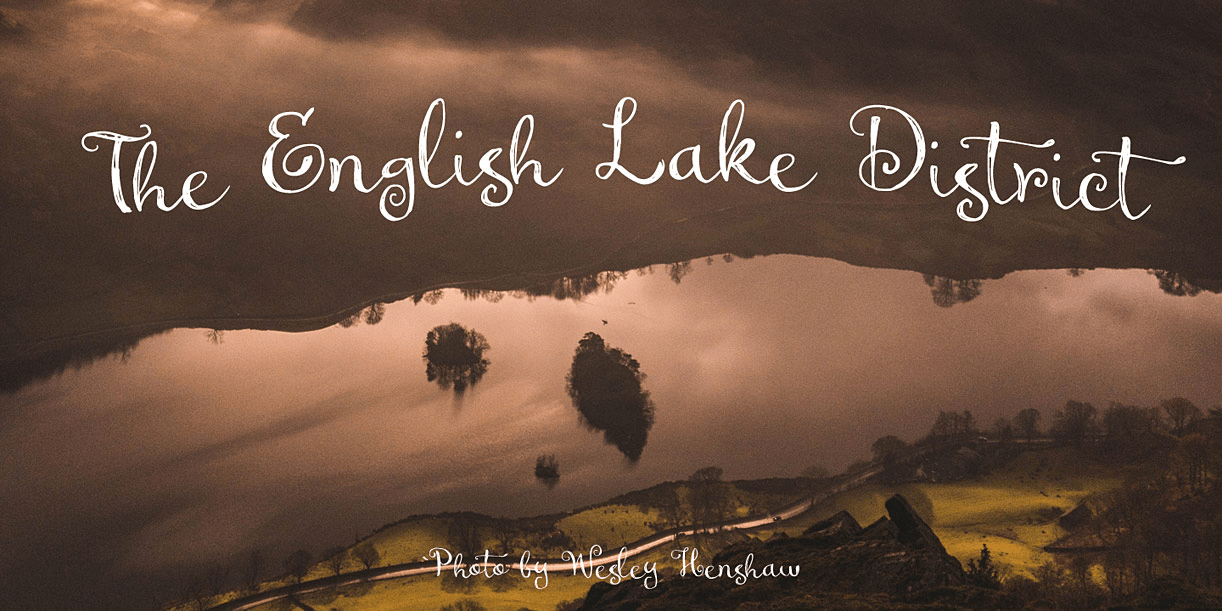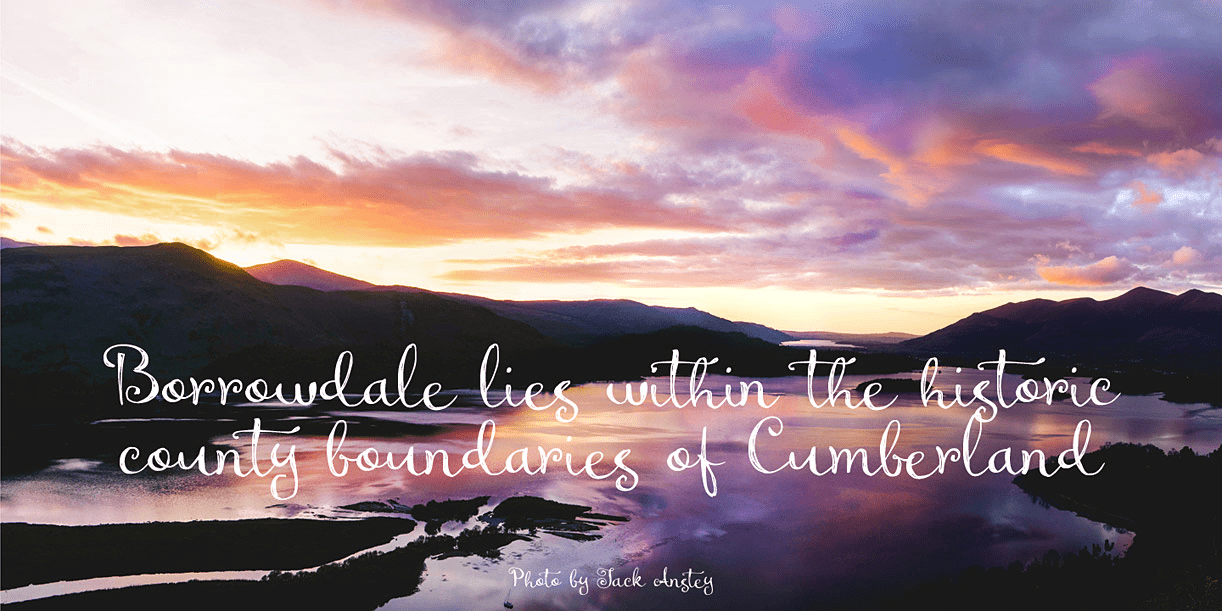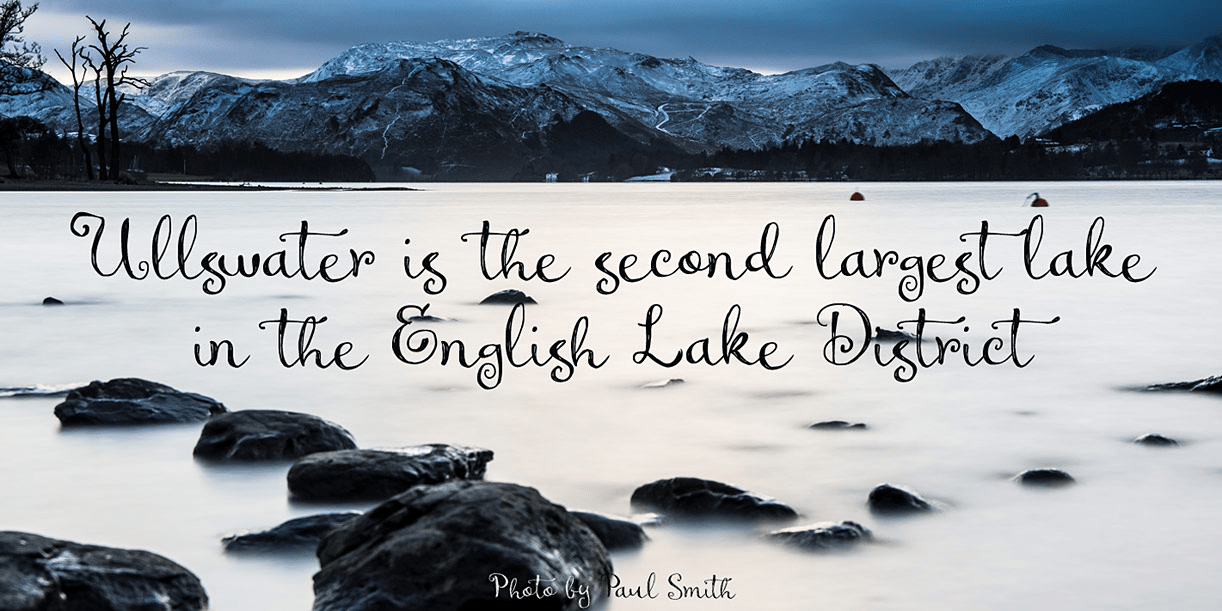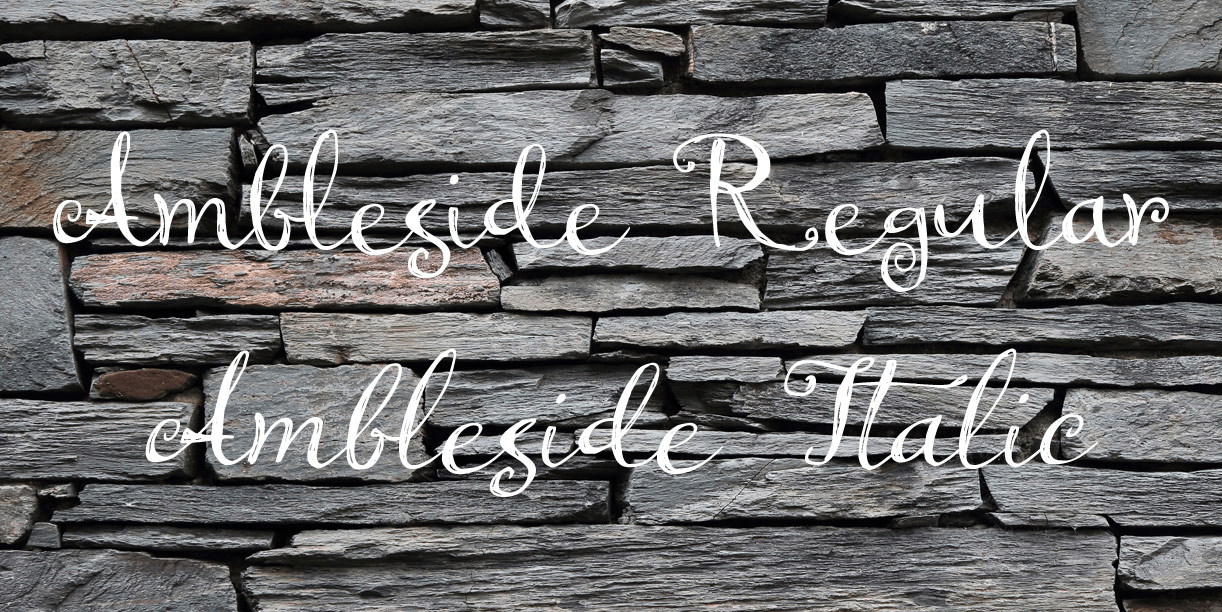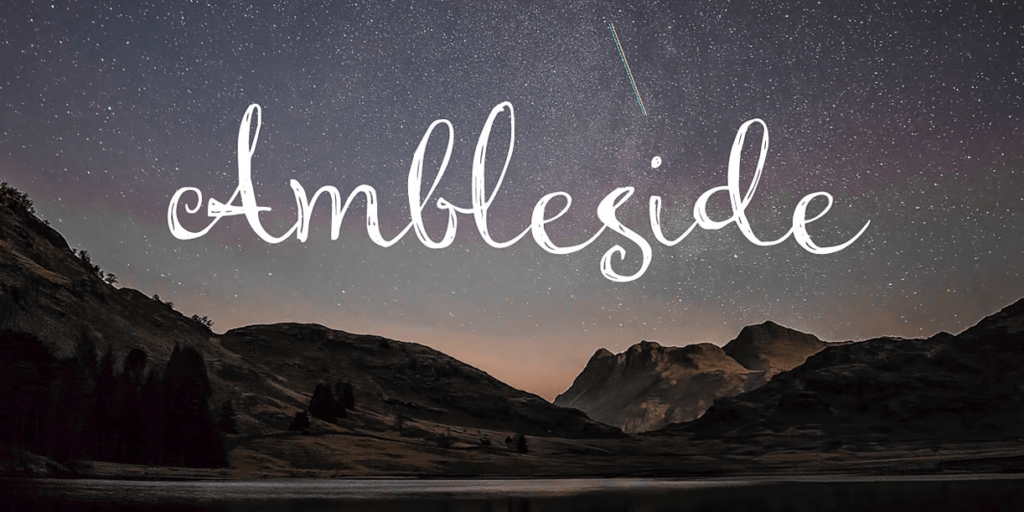
Ambleside is a town in the English Lake District. I used to live and work there, so I decided to name a font after it. Ambleside the font is a handmade connected script font. It\’s a little rough, but loveable nonetheless. Comes with all the diacritics…